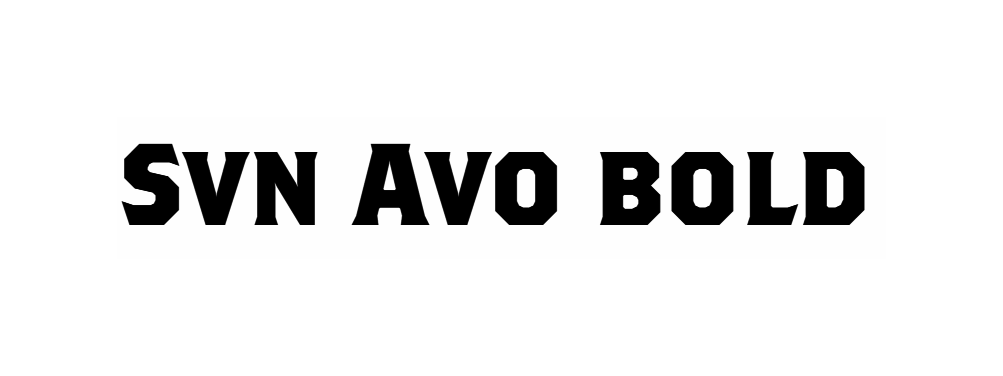
Svn Avo bold font
Svn Avo bold
Svn Avo bold is a serif font. Small strokes at the ends of its letters (the serifs) give it a classic, trustworthy look. It's a free download, and you can try it with your own text in the preview above first.
With complete upper and lowercase letters and all ten digits, Svn Avo bold is ready for real wording, not just a single headline. Everyday marks like &, !, ? and @ are there too. Thanks to its accented letters, it also works for Spanish, French, German, Portuguese and Italian, not just English.
Designers usually reach for fonts like Svn Avo bold when they're making book covers, magazine headlines and classic branding. Serif fonts shine in headlines and printed text. For long paragraphs on phones, check that it still reads well at small sizes.
Yes. Svn Avo bold includes the accented letters needed for Spanish, French, German, Portuguese and Italian, so it works for more than just English.